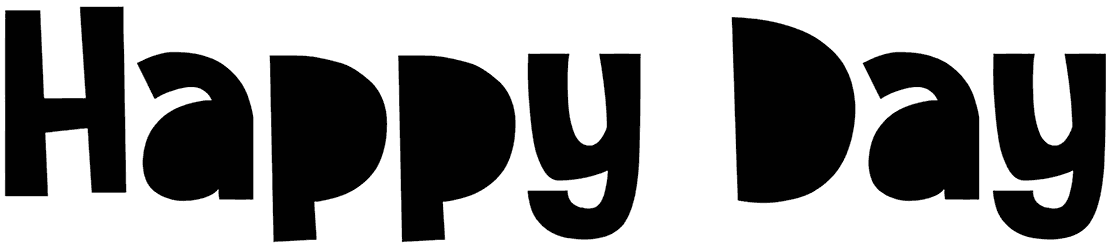
Happy Day Font
Take a look at this cute and eye-catching item that can take the level of your designs up. As a cartoon font, Happy Day consists of bold and unique letters that could be a cheerful showcase for varied projects with happy subjects. Place this fancy font on your intended designs, from posters to game screens, and be memorable.